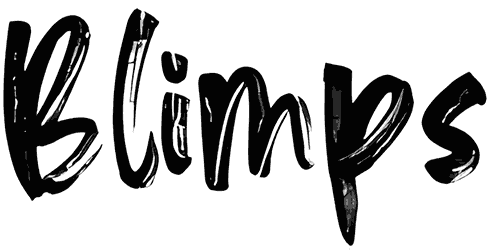
Blimps Font
Since choosing the right font would be a little bit challenging for graphic artists, we have provided a lovely brush font, such as Blimps, for you.
Aside from the lack of numbers, this magical script font lets you add a fresh breath to all of your artwork, like billboards, branding, wood engravings, magazines, or social media posts. Needless to say that this masterpiece carries a sense of drama, tenderness, captivation, and viability.
Blimps is a fantastic font. It is a display font combined from handcrafted script brush font. This is
designed primarily as a captivating font to add the right amount of modernity and style. This font is an
excellent choice to ensure a great font matching your designs and projects! It is well suited to titles,
poster designs, branding, logos, etc.